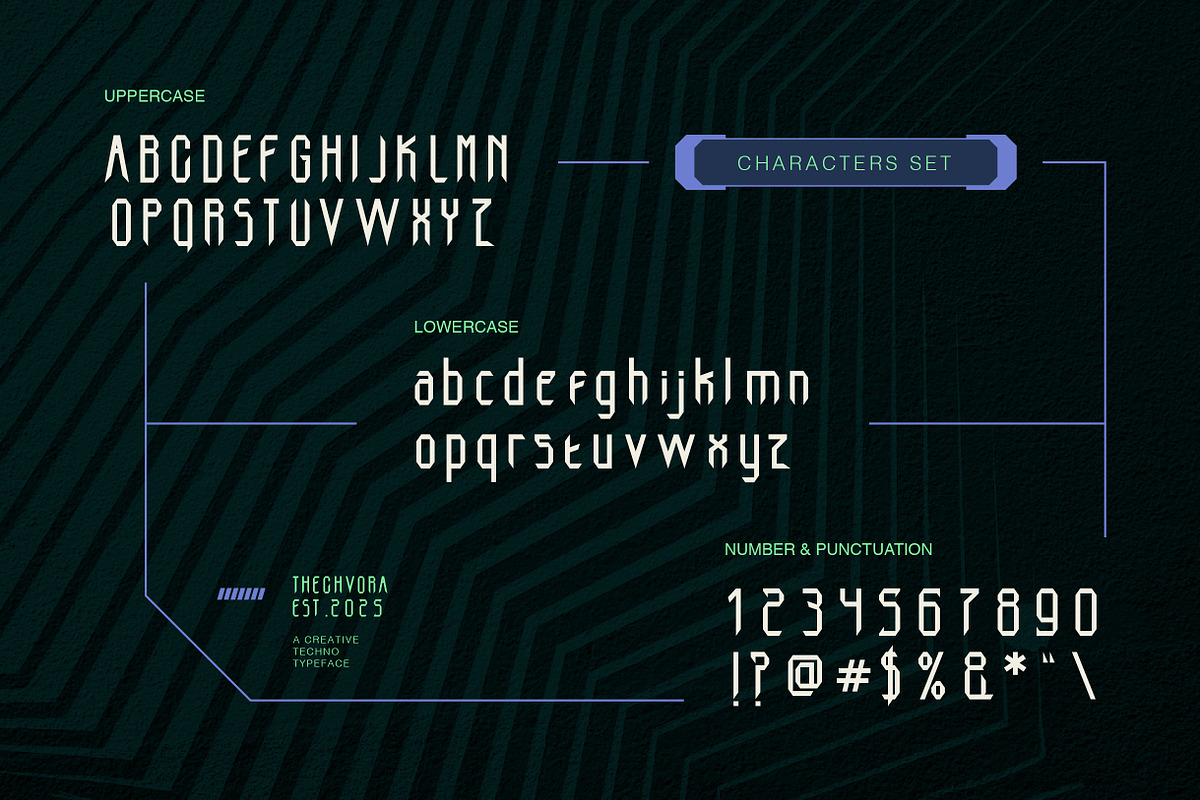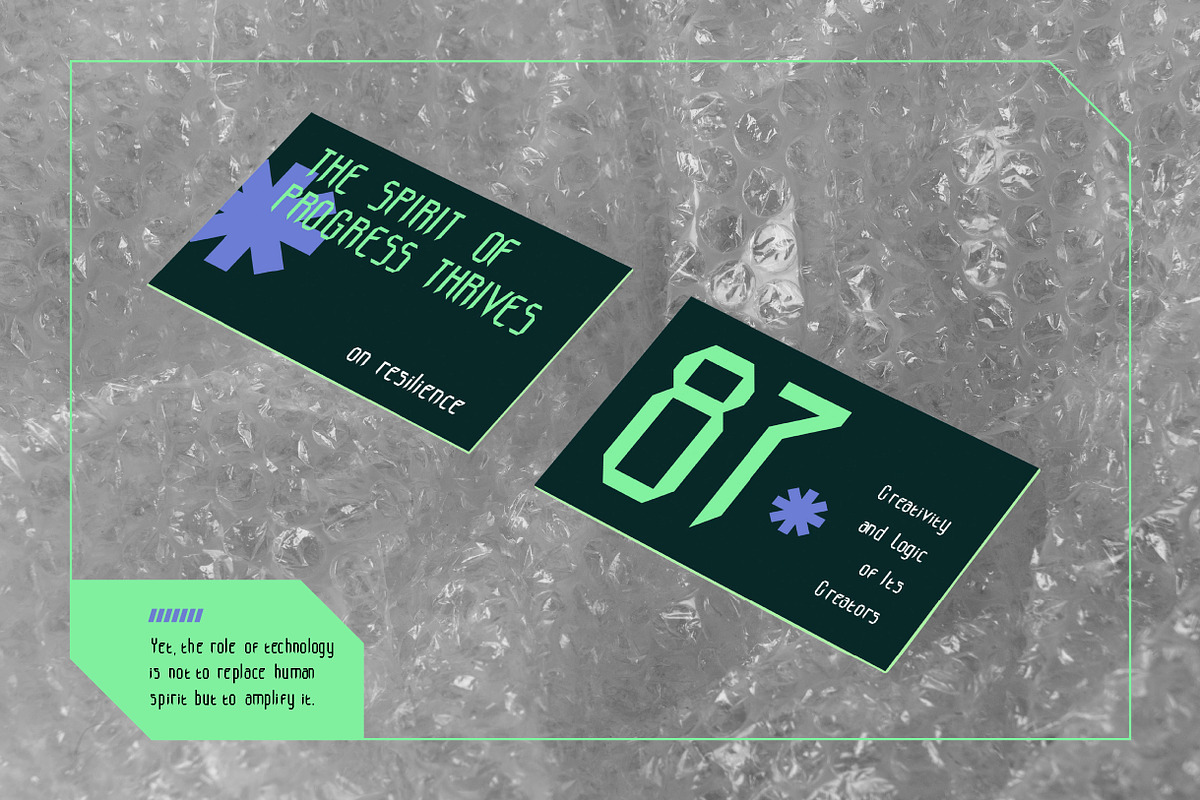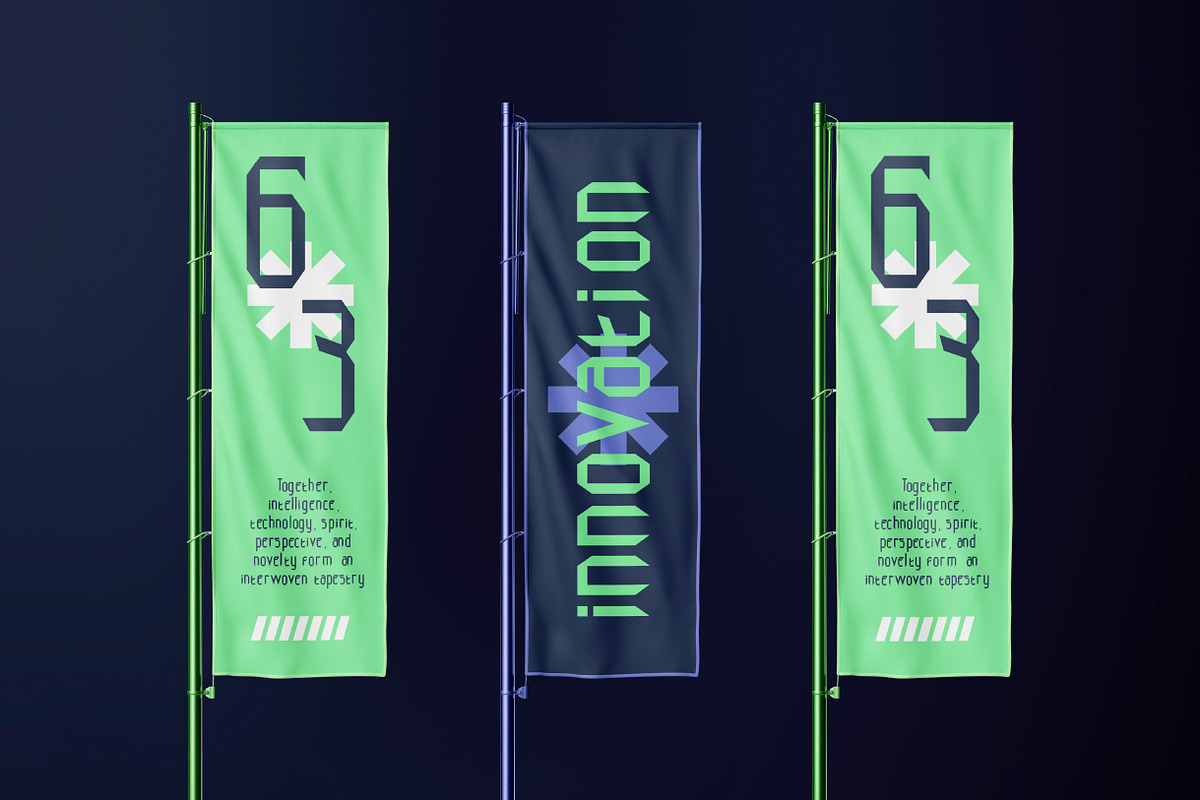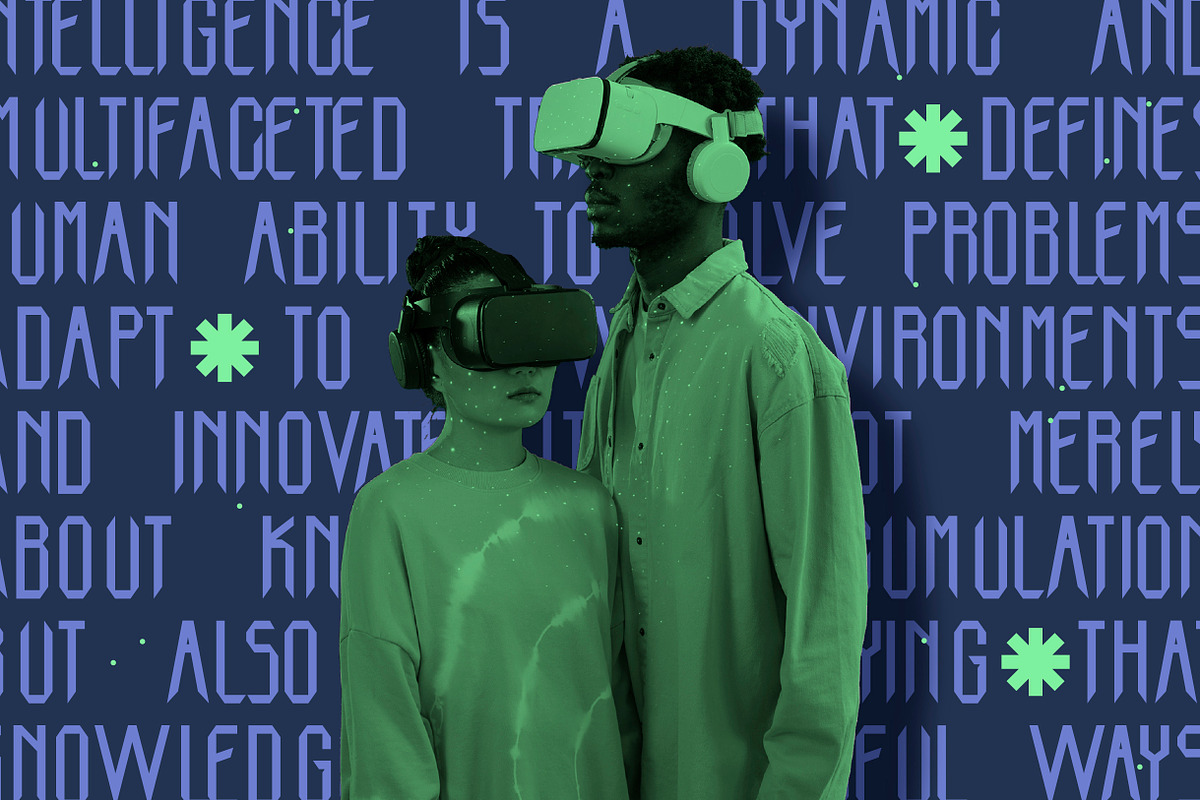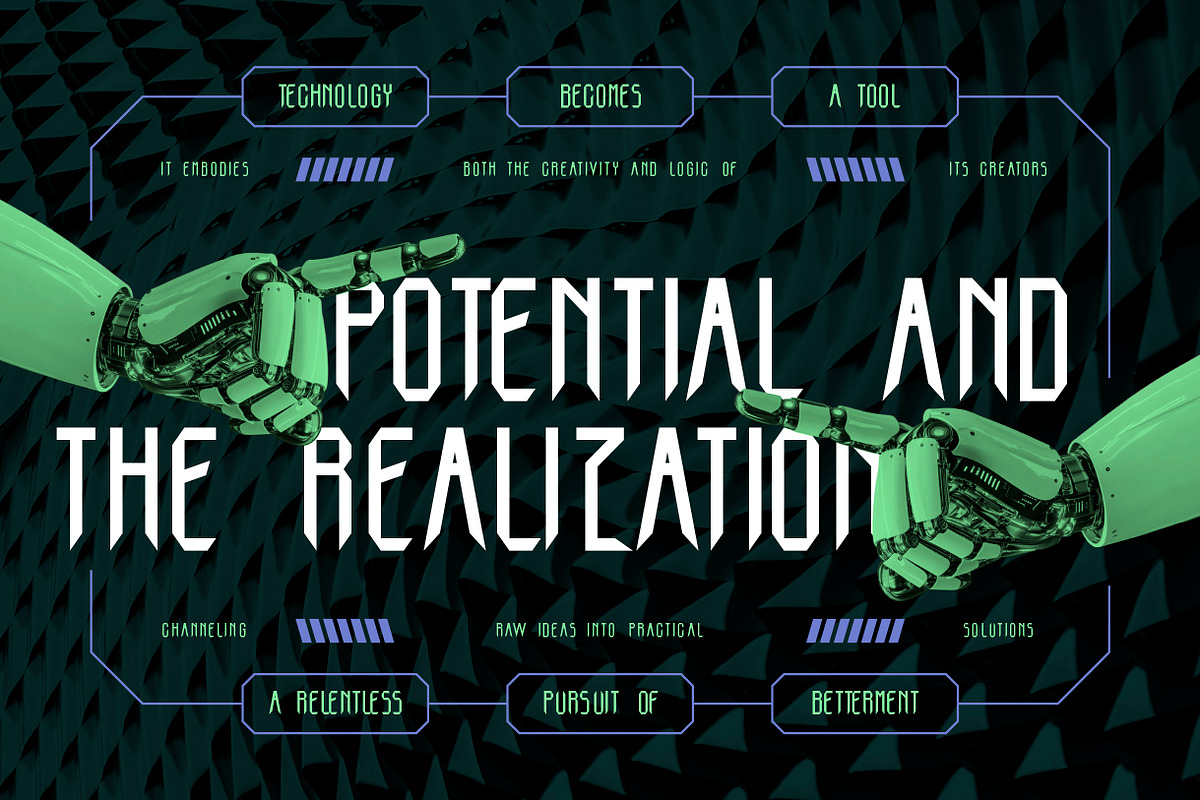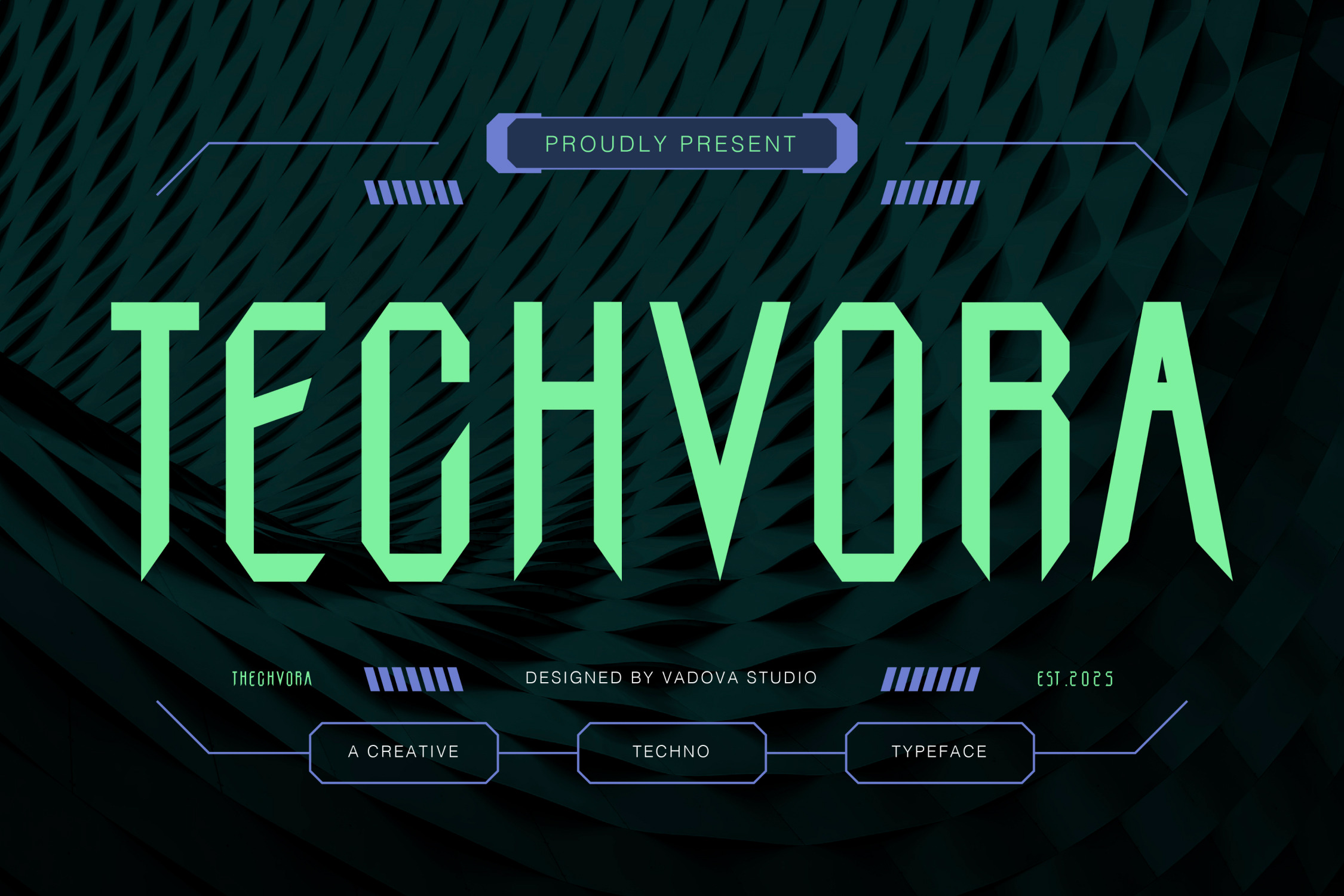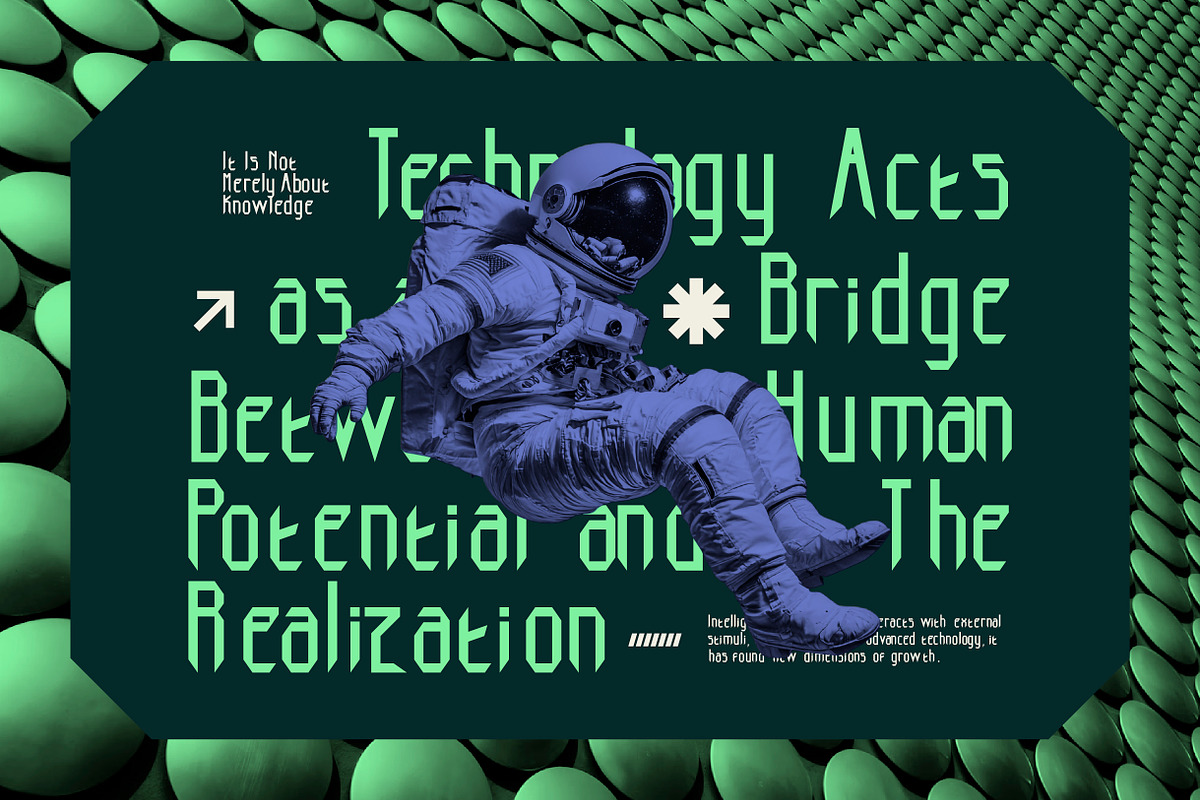
Techvora Futuristic Font
Techvora is a futuristic display font built to define innovation and modernity in design. With its sharp edges, dynamic structure, and geometric precision, this font delivers a sense of power and motion that perfectly fits the digital era. Its bold and angular character design reflects a fusion of high-tech aesthetics and sci-fi inspiration, making it ideal for creative professionals seeking a strong, modern typeface that stands out in any layout.
Each letter in Techvora is designed with sleek lines and cutting angles that project confidence and clarity. The font’s structure ensures a futuristic atmosphere while maintaining excellent readability, suitable for titles, posters, branding, or gaming visuals. It’s not just a font it’s a visual statement that elevates every digital or printed project into a new dimension of creativity.
- Futuristic display font with sharp, angular construction
- Perfect for tech branding, esports visuals, and sci-fi titles
- Geometric precision that enhances readability and design flow
- Dynamic letterforms that reflect speed and innovation
- Optimized for both print and digital screens
- Works well with gradient or neon color palettes
- Supports multilingual characters
- Ideal pairing with minimal sans-serif or futuristic icon sets
Relevance and Use Cases is UI design, movie titles, esports branding, or tech product packaging, Techvora instantly gives your project a cutting-edge look. Its consistent geometry and sharp typographic rhythm convey energy, speed, and innovation, transforming ordinary text into a visual identity that feels advanced and forward-looking.